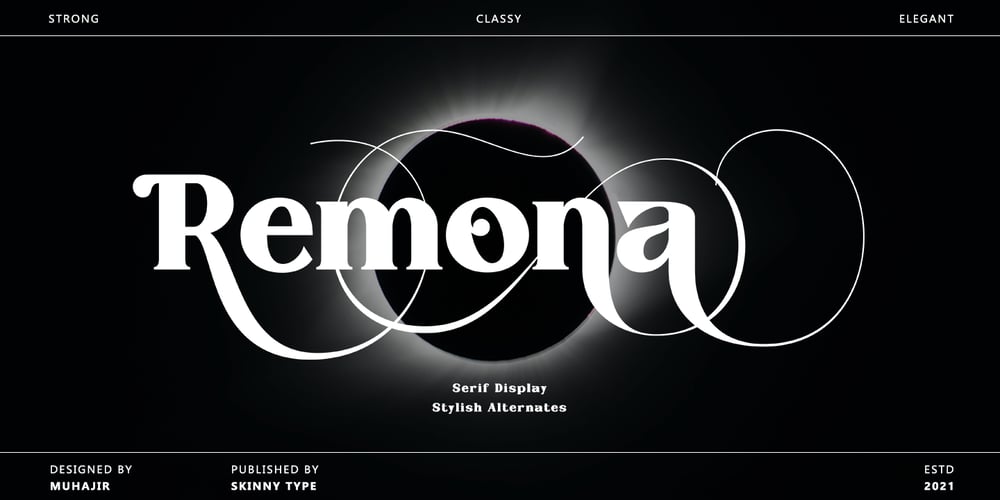
ST Remona Neue
ST Remona Neue font
ST Remona Neue Font Family was designed by Muhajir and published by Skinny Type. ST Remona Neue contains 3 styles and family package options. ST Remona Neue is a confident serif.Designed to reflect nature, it creates a sense of softness and natural expression. We pushed the concept in a usability-focused direction, to work as a bold tool and a beautiful communicator.ST Remona Neue allows for fluid designs in 3 styles. Regular, Italic, Outline and Latin based main language. The right slant advances aesthetics, brings energy and makes it suitable for modern design.The type family blends organic curves and soft repetition into strong and harmonious types. At large dot sizes you can appreciate the shape of the letters, while the same control and focus creates an even texture for small dot sizes and long reads.Fonts extend their use by providing a variety of unique language and style supports.The ST Remona Neue character set combines additional symbols, style alternatives, unique binding, and case sensitive punctuation – resulting in a stable, hardworking family ready to tackle projects of any size.Happy Designing